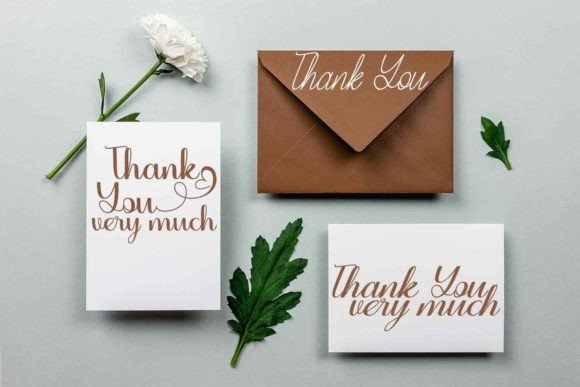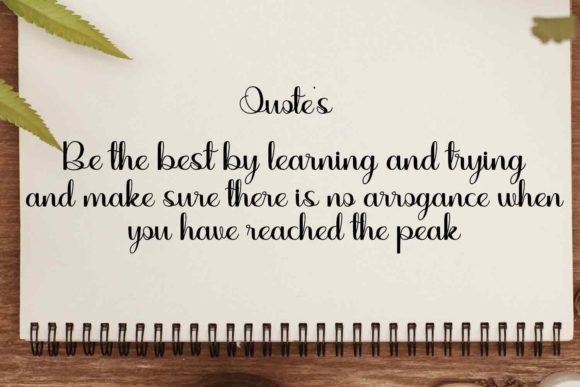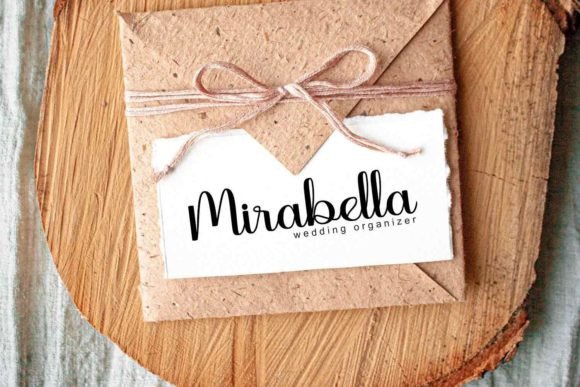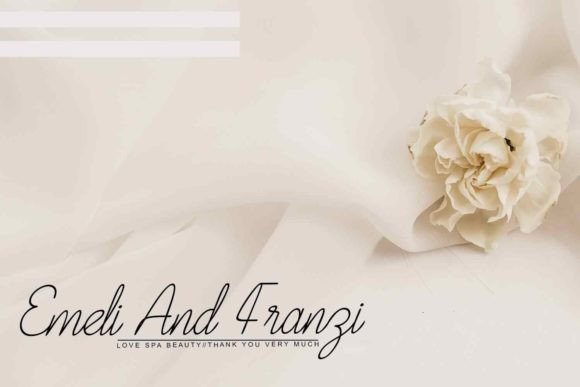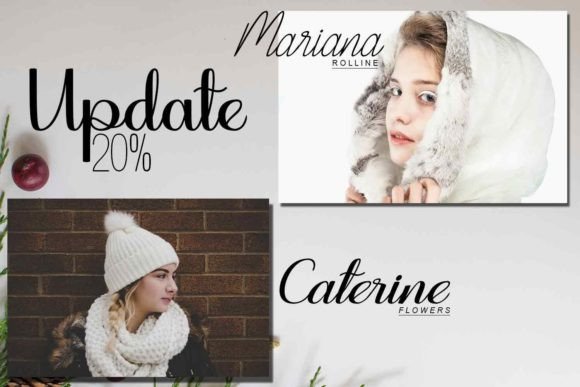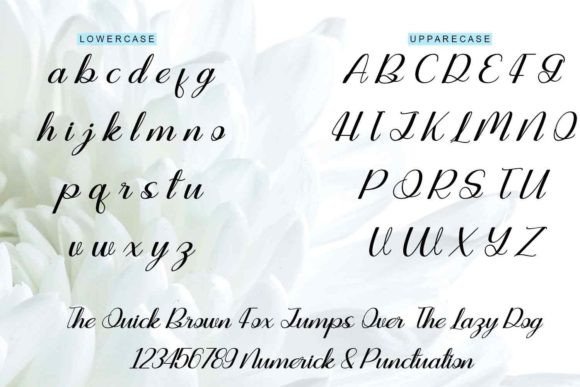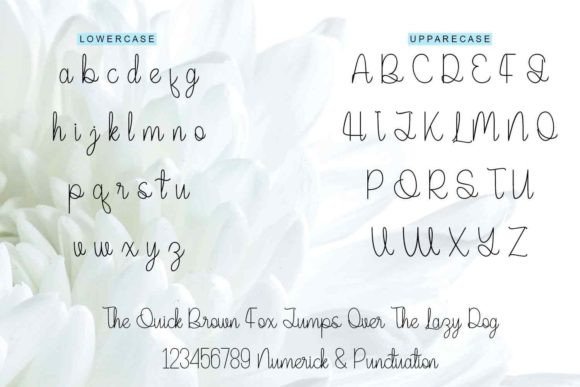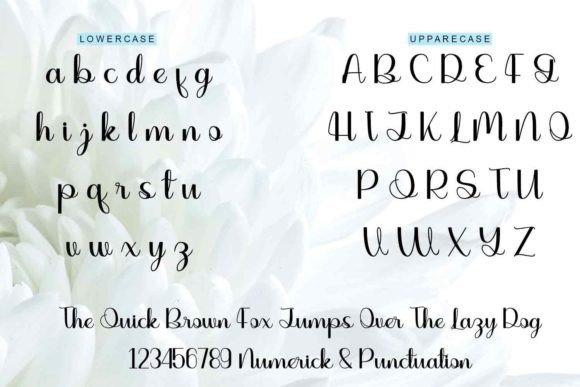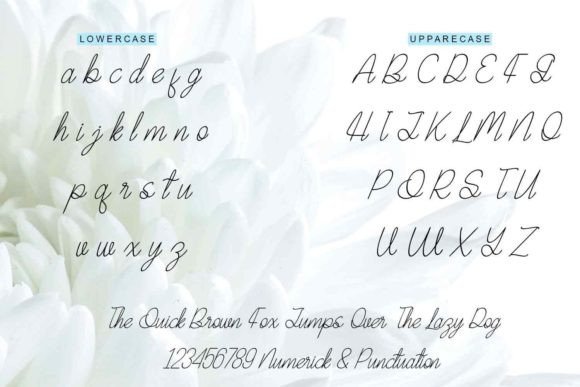
Maimunah Font
About Maimunah Font
“Maimunah” is an elegant and attractive script font designed with a balanced environment and thickness, creating the impression of beautiful strokes akin to smooth handwriting. With its refined and graceful style, “Maimunah” is a versatile font that opens the door to a myriad of creative possibilities. Whether you’re working on invitations, branding, posters, or any other design project, this font offers the elegance and attractiveness to enhance your creations.
The appropriate thickness of “Maimunah” contributes to its readability and overall aesthetic appeal. Its smooth strokes evoke the feel of carefully crafted handwriting, adding a touch of sophistication to your text. The elegance of the font makes it suitable for a variety of applications where a refined and attractive script is desired.
The versatility of “Maimunah” allows you to explore a wide range of design projects. From formal invitations to stylish branding, the font adapts seamlessly to different styles and themes. Its ability to convey both elegance and readability makes it a valuable asset for designers seeking a script font that can cater to various design needs.
In conclusion, “Maimunah” is more than just a font; it’s a design tool that brings elegance and attractiveness to your creative projects. Its refined script style, with the appropriate thickness, offers a delightful canvas for creating visually appealing designs. Whether you’re crafting invitations, developing a brand identity, or working on posters, “Maimunah” provides the beautiful strokes and elegance needed to elevate your creations.